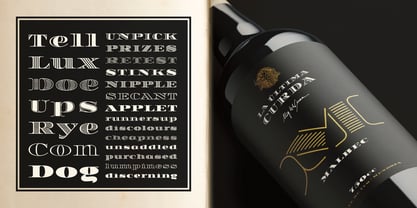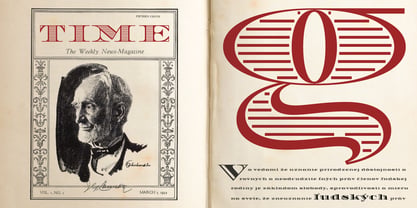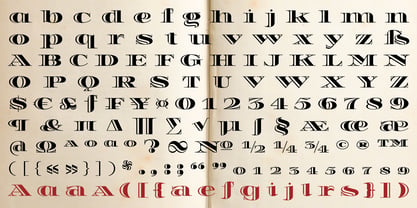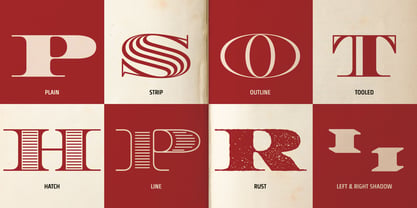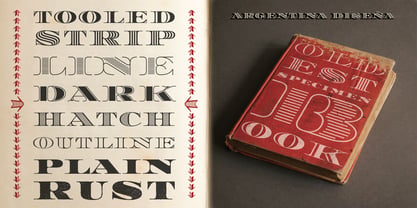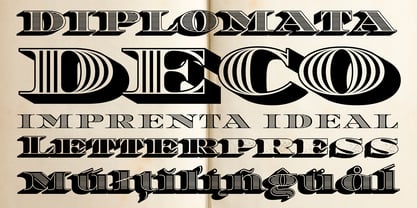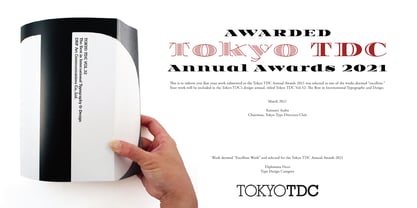
Diplomata Deco
von Tipo
Die Schriftfamilie Diplomata Deco wurde von Eduardo Omar Rodríguez Tunni entworfen und von Tipo veröffentlicht. Diplomata Deco enthält 10 Stile und Familienpaketoptionen. Mehr über diese Familie
Diplomata Deco -DD- started several years ago when a friend in the printing industry who had an old metal typeface wanted it to be digitalized for offset and letterpress printing. He brought everything the original type offered as a start, a set of uppercase characters, numbers, and some punctuation marks. But what he brought in printed form was not enough to meet his needs, and letterforms that did not exist had to be created. It is a fine job to reinterpret a design, to make decisions on what already exists and also have in mind the changes needed for the new technological context where DD will be used. Its style, similar to Bodoni, has a remarkable degree of horizontal expansion; a weight which indicates verticality; areas between serif and stem softened by a curve connecting them, and the light in the main stroke of each glyph is a detail that lightens up and gives prominence to DD. It is a distinct typeface, ideal for composing headlines and small prestigious pieces of text. To improve and expand the use of DD, it was necessary to create small caps and a lower case, which ended up constituting this family that has seven styles –plus 2 shadows— today.
Designer: Eduardo Omar Rodríguez Tunni
Foundry: Tipo